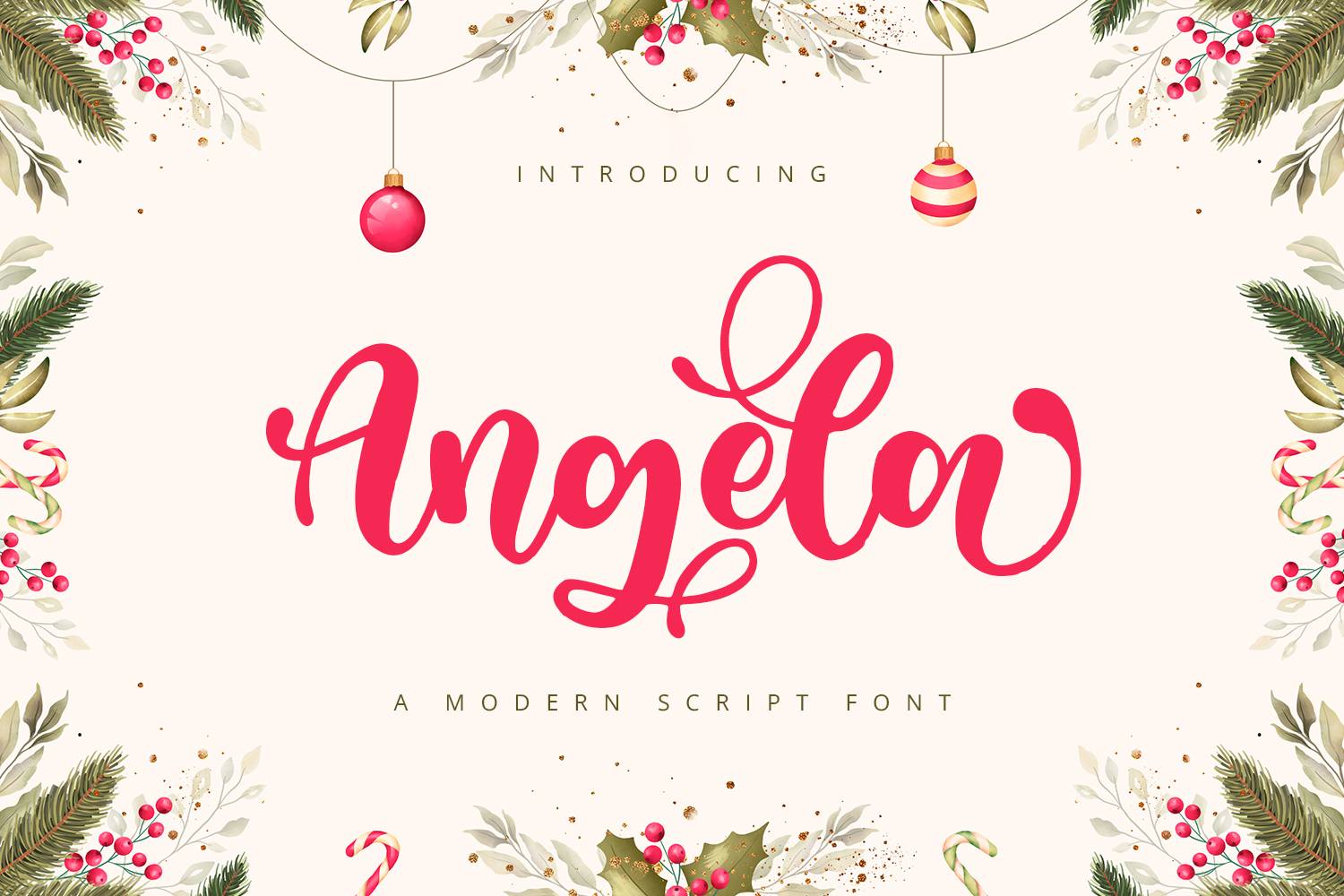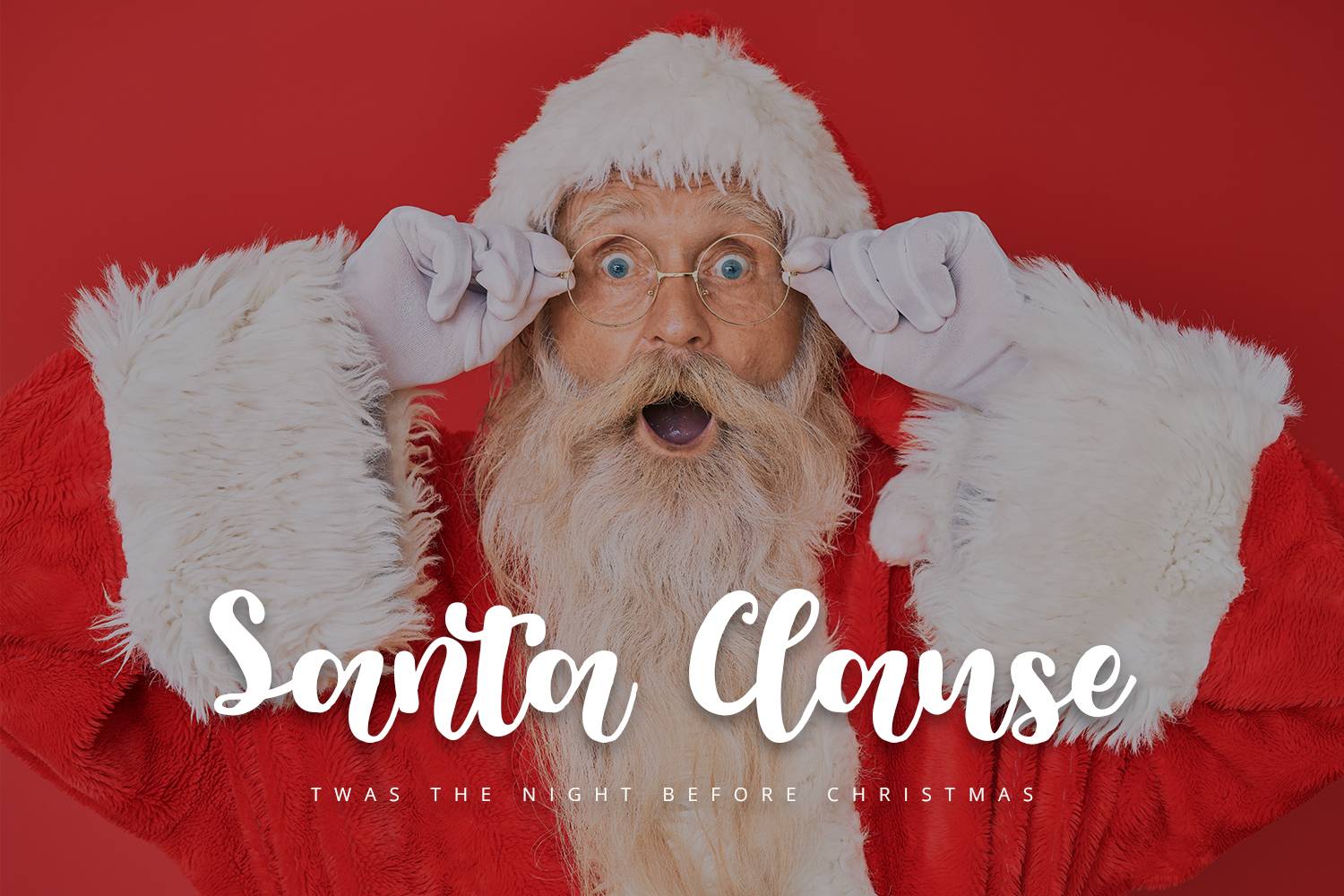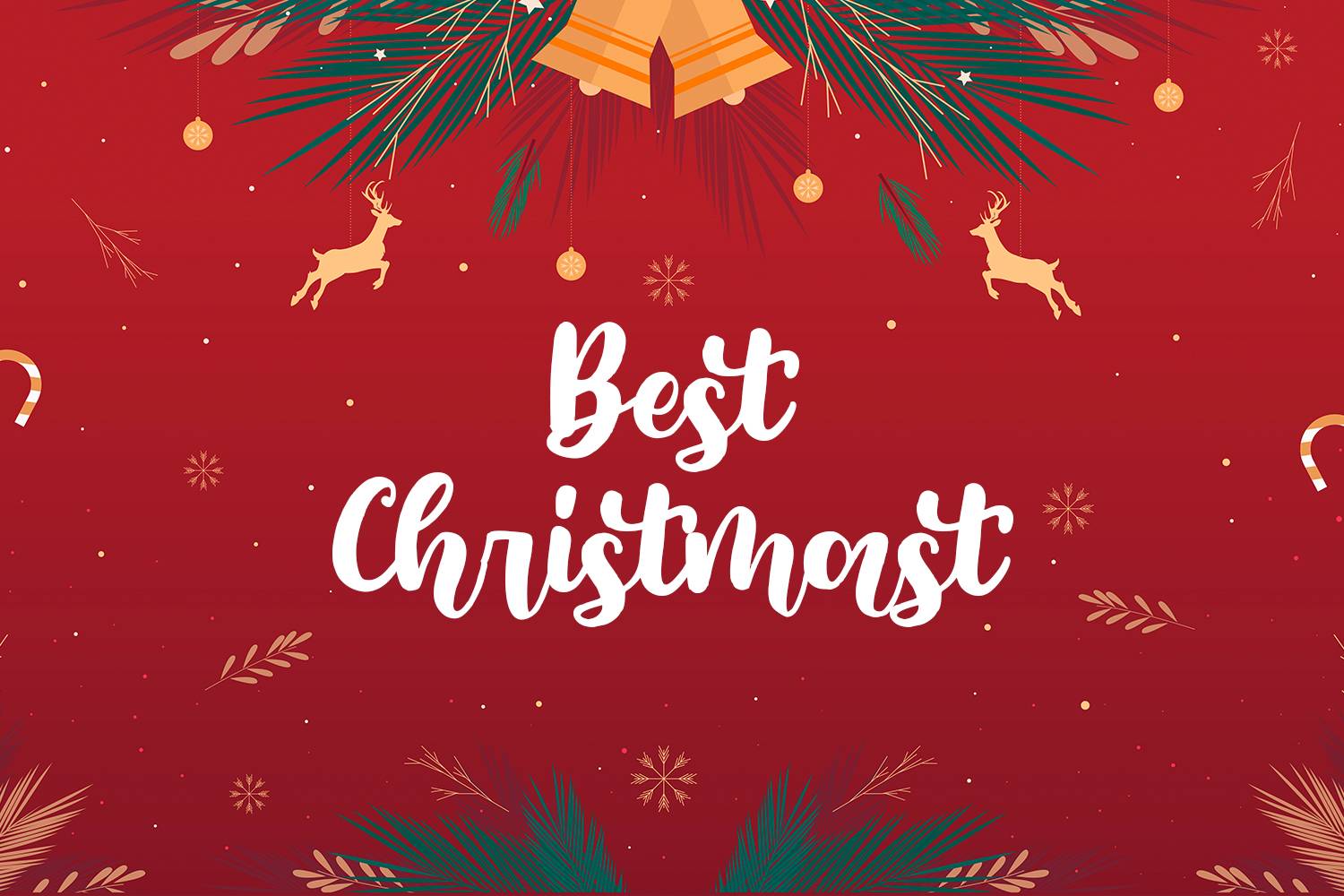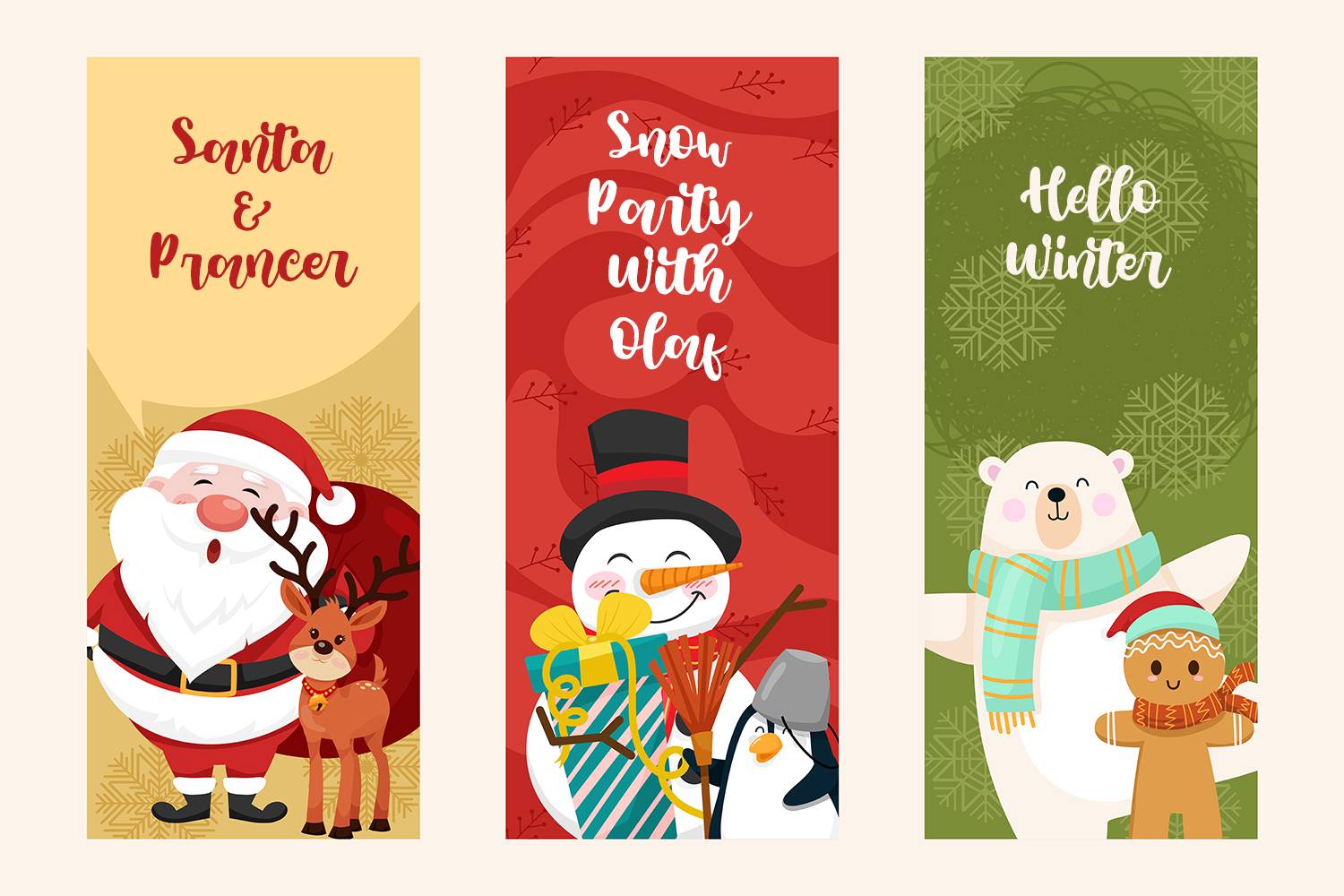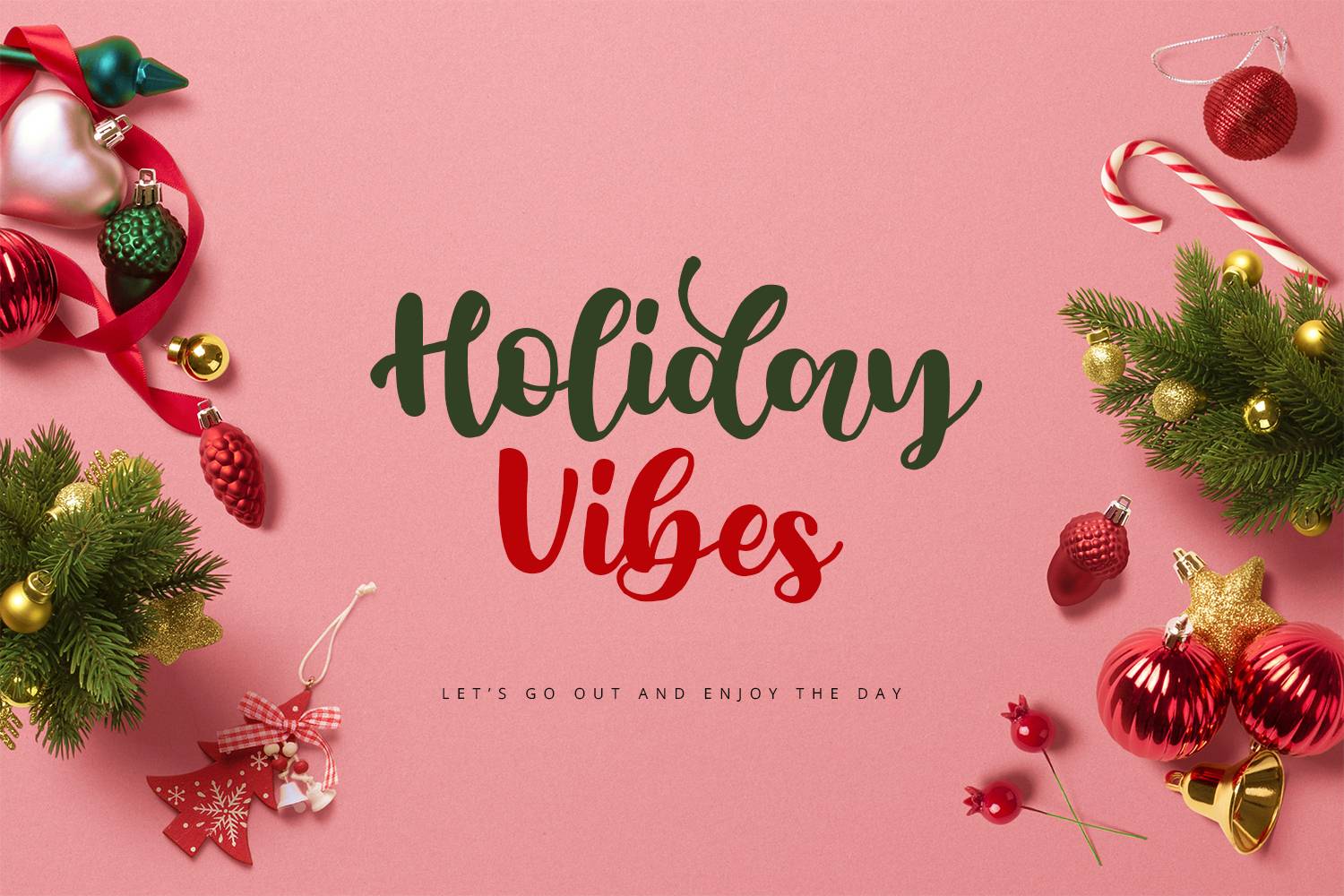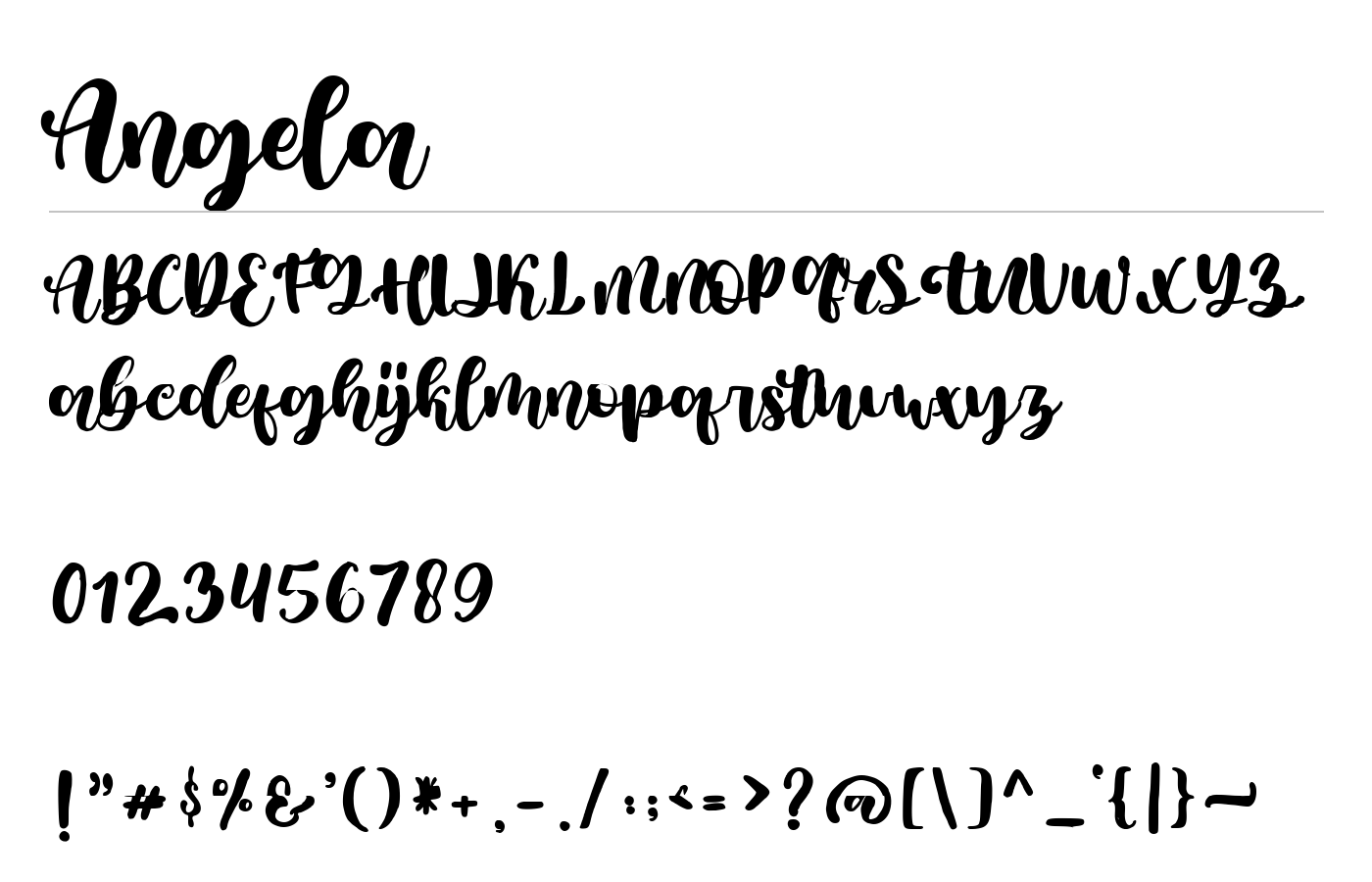
Angela Font is a lively and expressive script typeface with bold, smooth strokes and playful curves that give it a friendly and creative feel. Its thick weight and slightly condensed letterforms make it ideal for eye-catching headlines, logos, and branding that aim to convey warmth and personality. This font works beautifully in projects like invitations, packaging, and fashion or lifestyle branding where a personal and handwritten touch is desired.
Angela Font